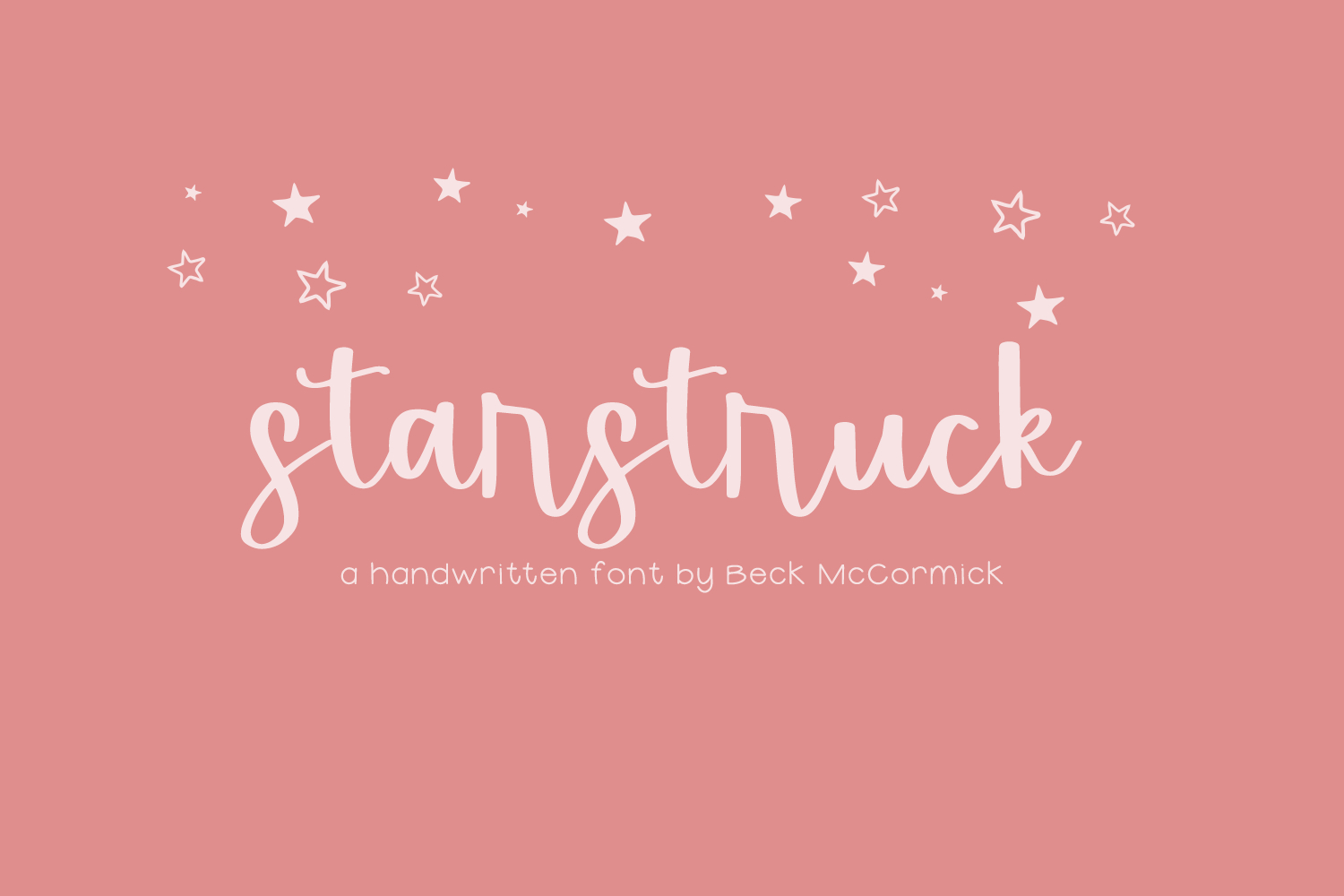
Introducing Starstruck, a neat & tidy modern script.
Starstruck is best for:
- using as a reference to teach handwriting & penmanship skills
- feminine, crafty projects with your Cricut or Silhouette machine, or your SVG design business
- farmhouse decor and crafts
- digital planners & apps like Goodnotes
- website design + website accents, blog design
- feminine graphic tee shirt design & other apparel